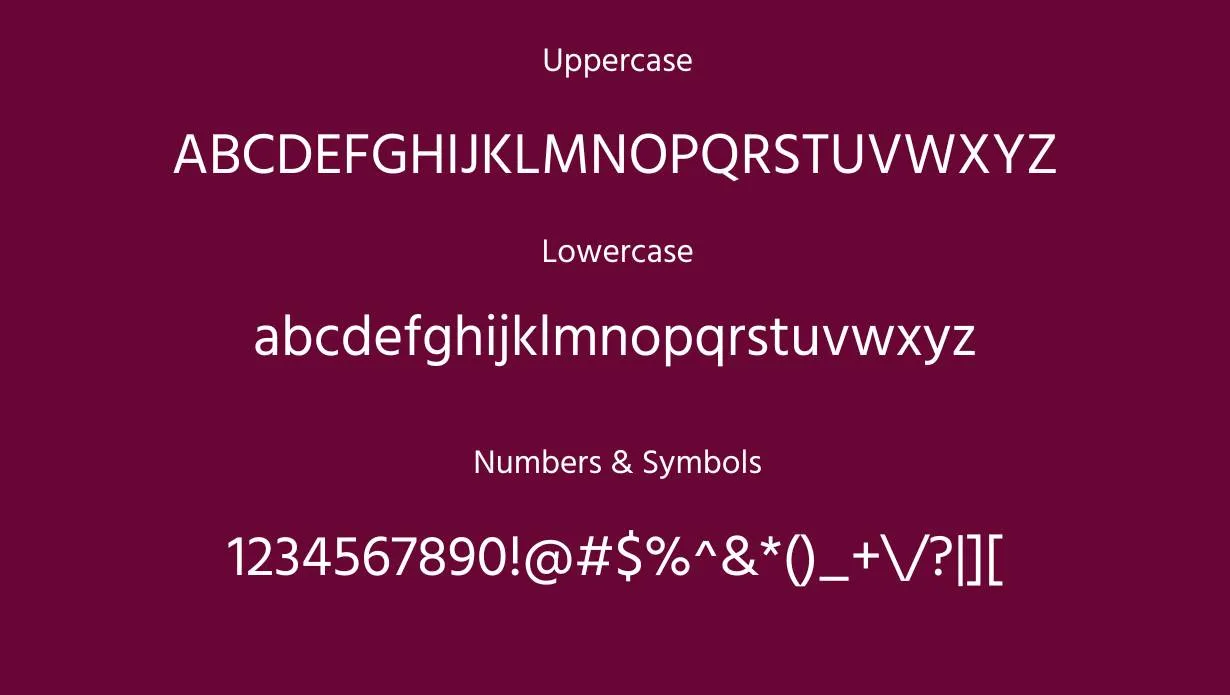
Dive into the vibrant world of Stylish Hindi Font. Combining the beauty of traditional Hindi script with a modern and stylish twist, this font is perfect for cultural designs that celebrate the richness of the Hindi language.
Whether you’re working on stylish invitations, cultural publications, or any project where tradition meets contemporary design, Stylish Hindi Font adds a touch of cultural finesse to your text.
| Name | Stylish Hindi Font |
| Designer | John Hudson and Fiona Ross |